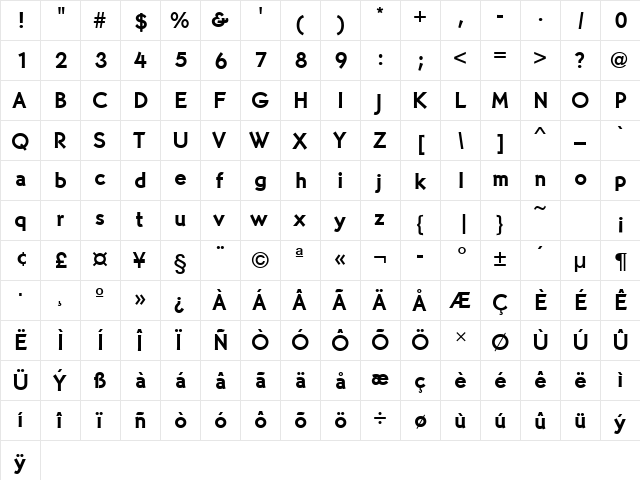
MartinGotURWTBol Regular Font Preview
MartinGotURWTBol Regular
Design Context for MartinGotURWTBol Typeface
MartinGotURWTBol offers clean, dependable letterforms without strong stylistic allegiance, making it a practical choice for designers who need flexibility.